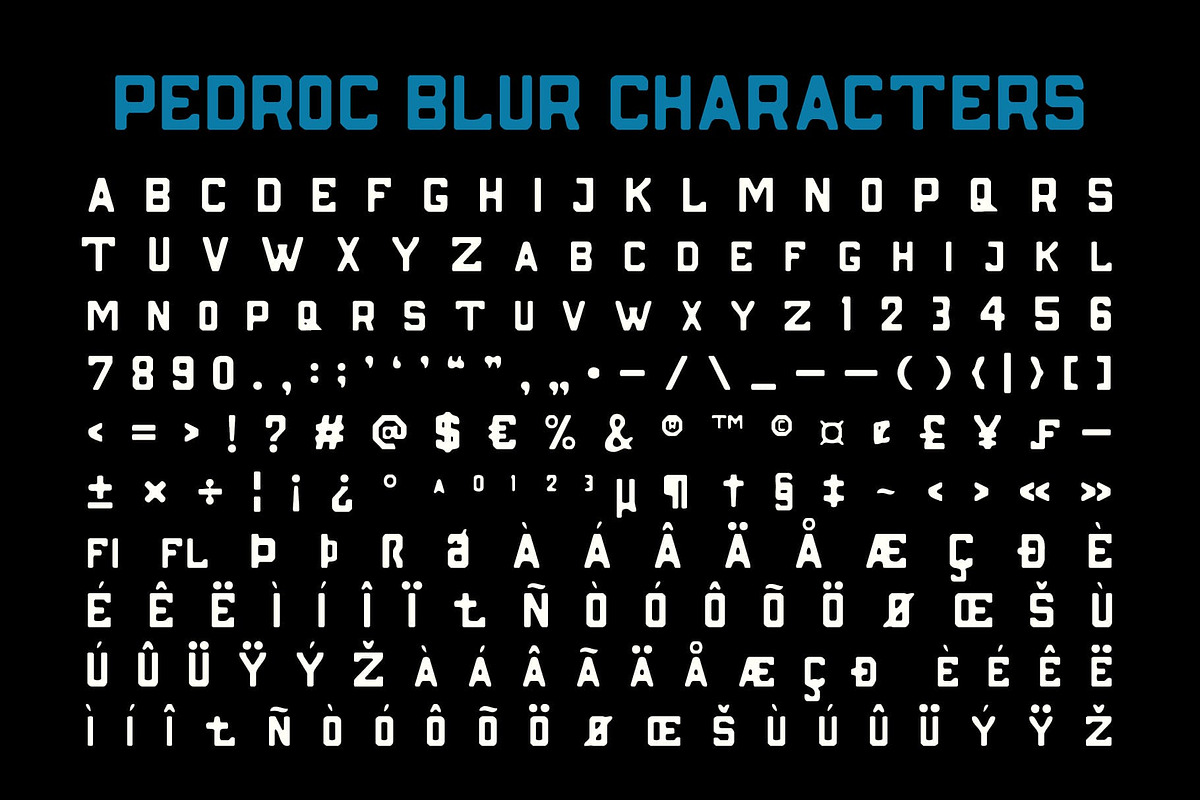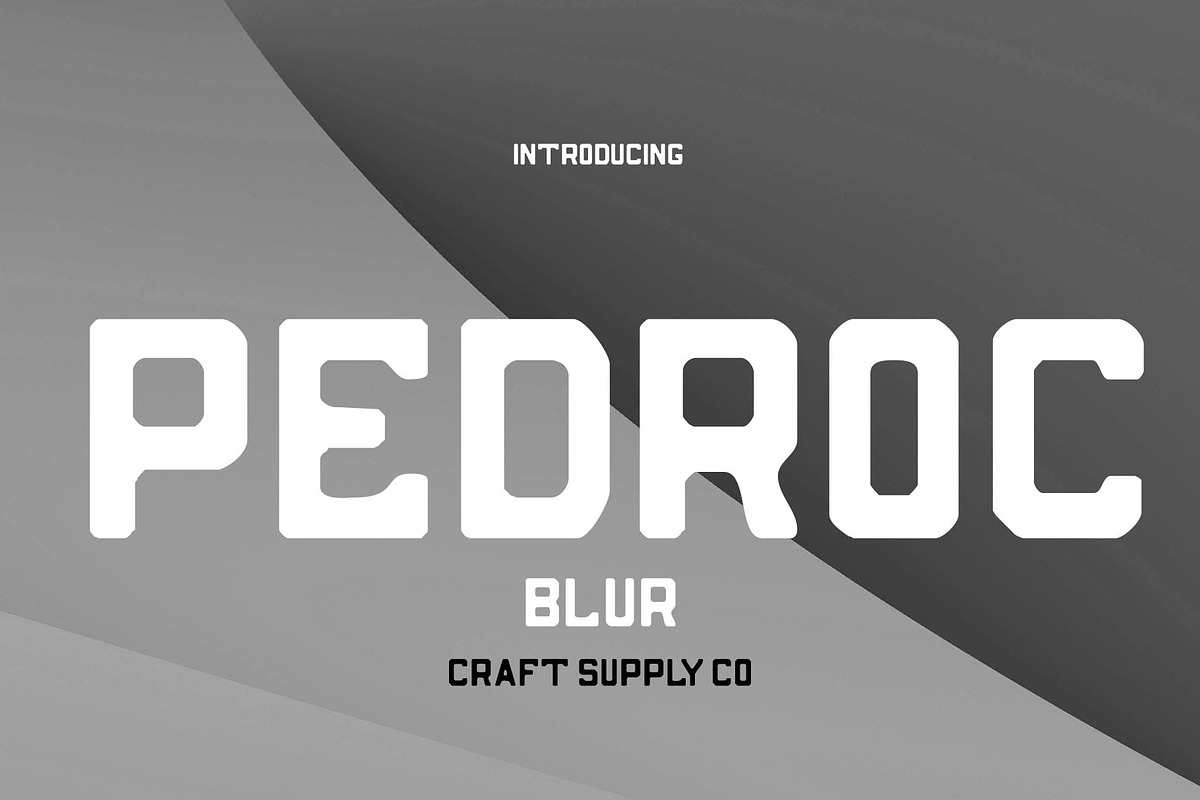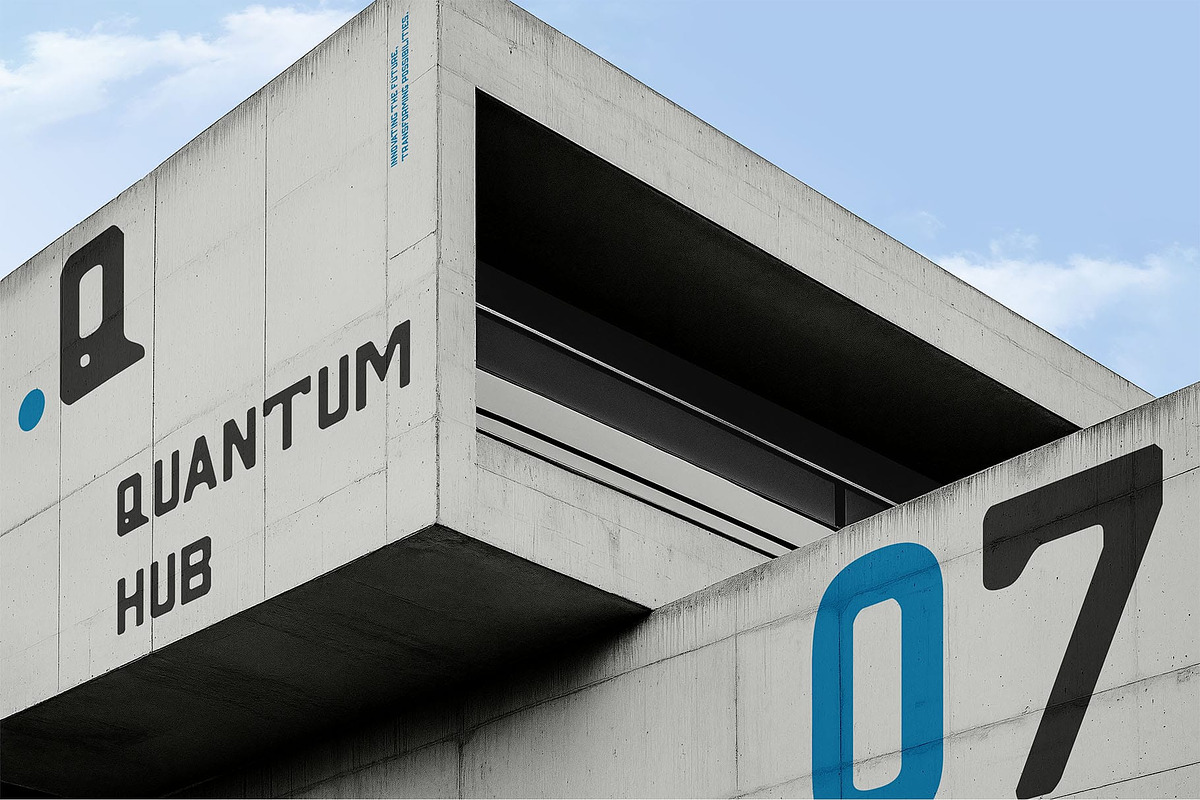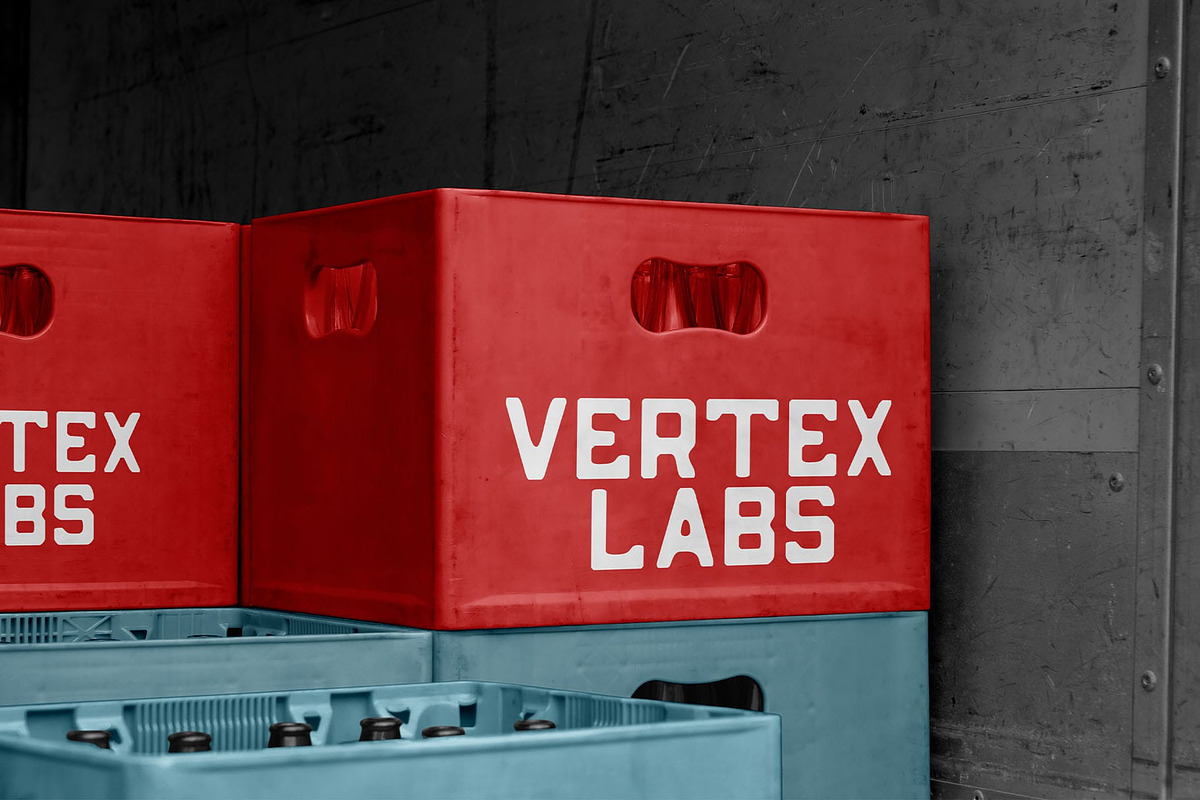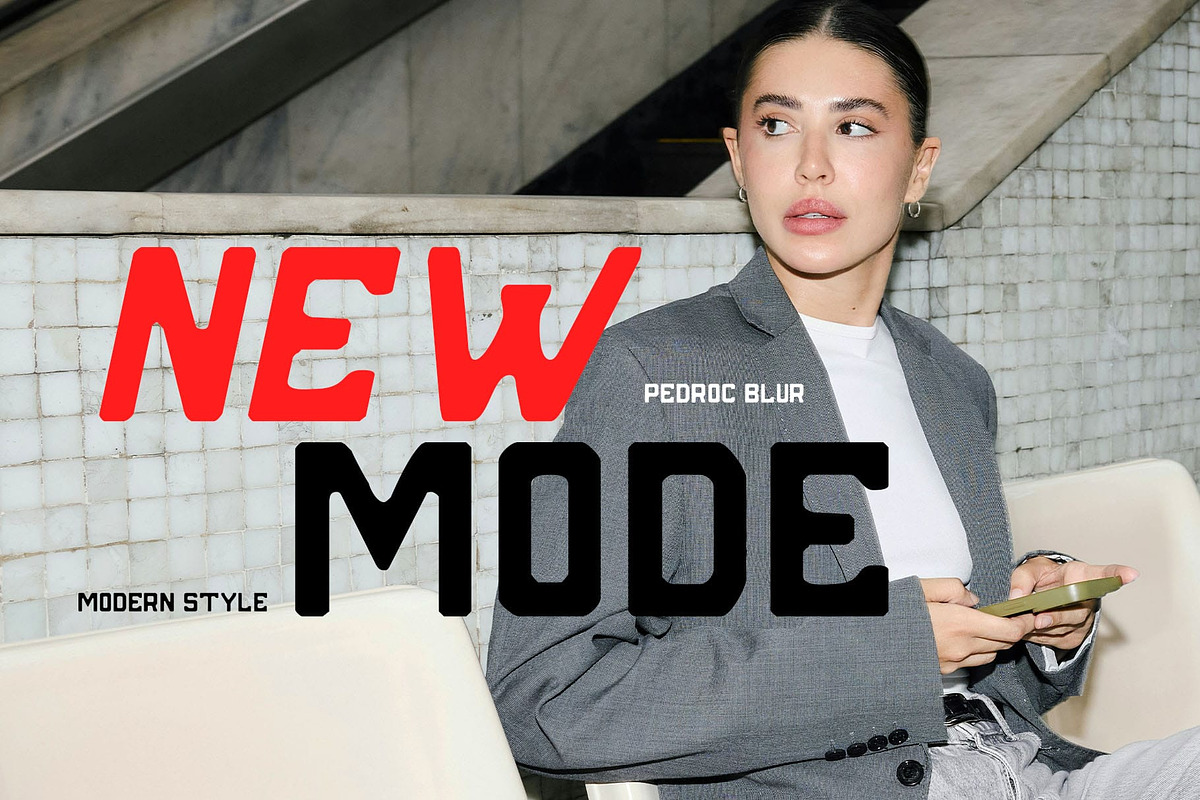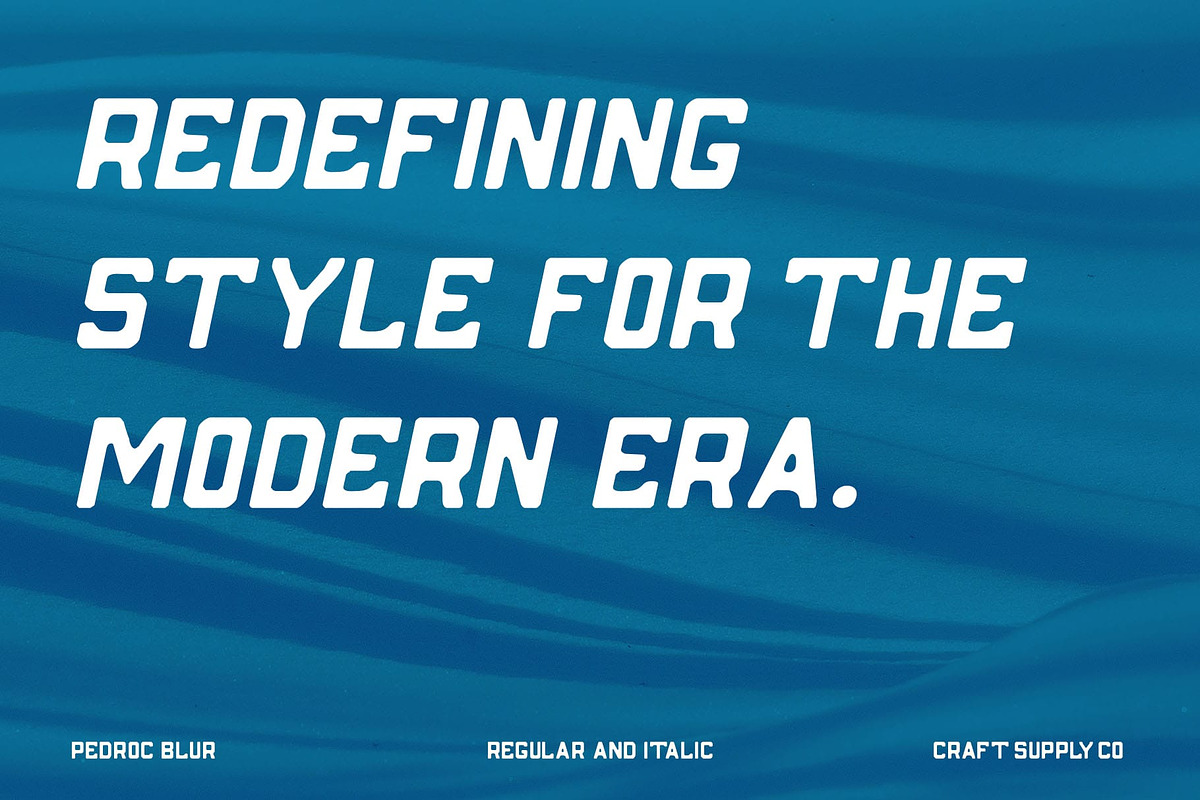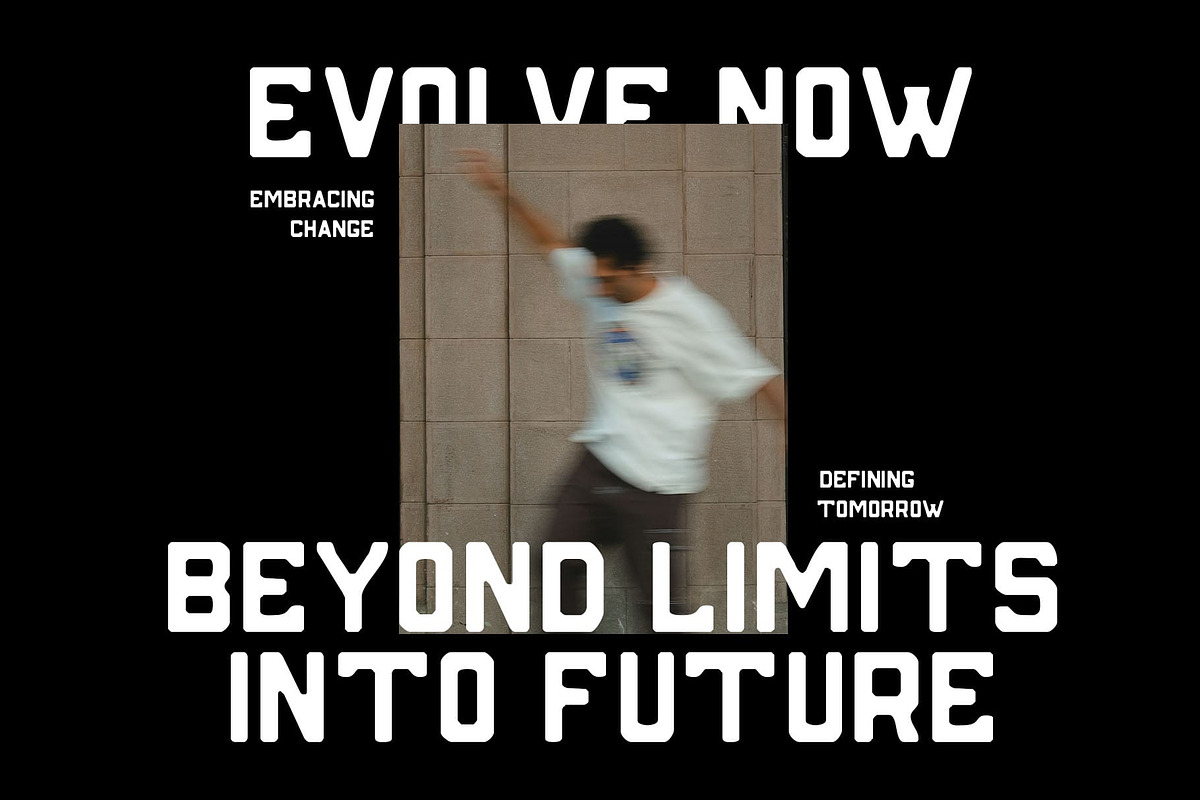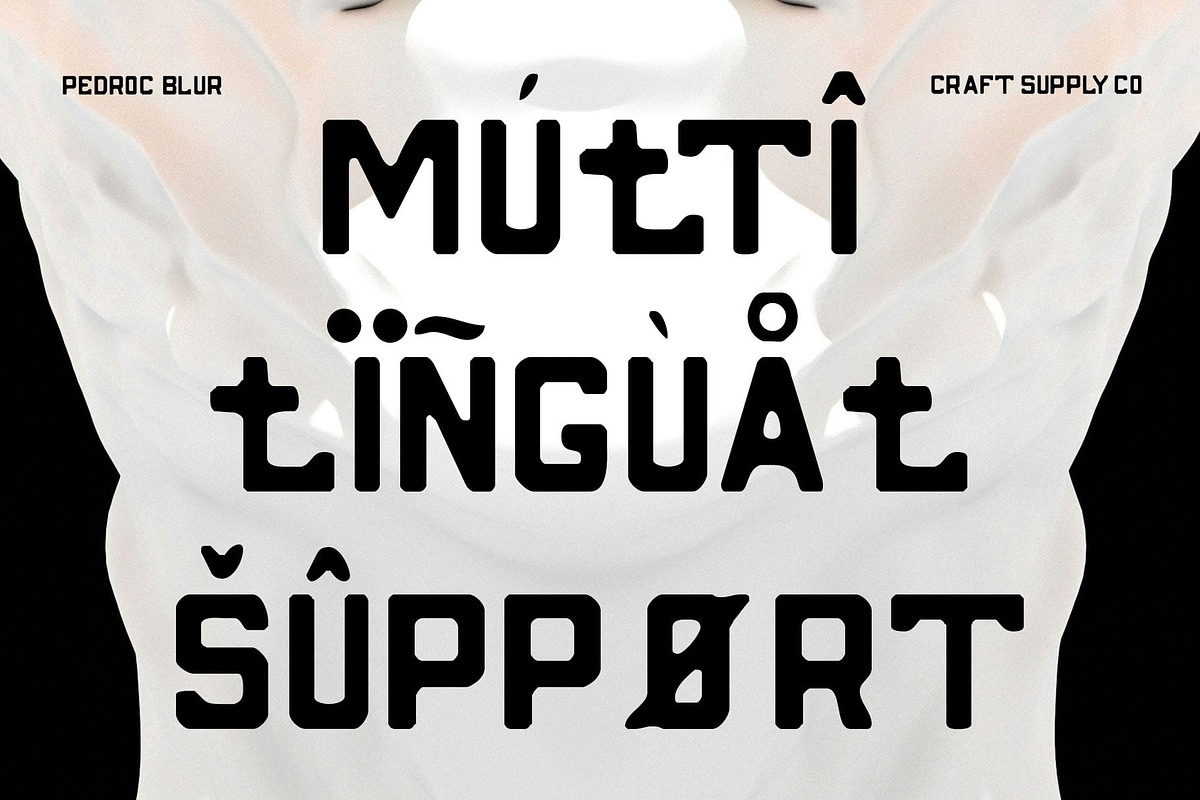
Pedroc Blur
Pedroc Blur Font – A Bold Fusion of Tech and Motion
Modern Sans-Serif with a Futuristic Edge Pedroc Blur is a cutting-edge sans-serif font designed for the digital age. Inspired by technology and futuristic typography, it boasts bold letterforms, sleek geometry, and sharp angles that enhance readability while maintaining a powerful, high-tech presence.
Blur Effect for Depth and Motion A defining feature of Pedroc Blur is its subtle yet striking blur effect, which creates an illusion of speed, energy, and innovation. This effect adds a layer of visual depth, making the font stand out in dynamic and futuristic compositions.
Strong Structure, Clean Aesthetic Built with a sturdy and well-balanced design, Pedroc Blur offers clarity and strength, making it ideal for branding, UI/UX interfaces, game titles, and sci-fi-inspired visuals. Its bold and structured form ensures a modern, cutting-edge appeal while remaining highly legible.
Perfect for Tech-Driven and Innovative Designs Whether you’re working on technology branding, esports graphics, futuristic posters, or digital media, Pedroc Blur provides a striking and versatile typographic solution. Its blend of bold modernity and motion-inspired blur makes it a go-to choice for projects that need to capture innovation and forward-thinking design.